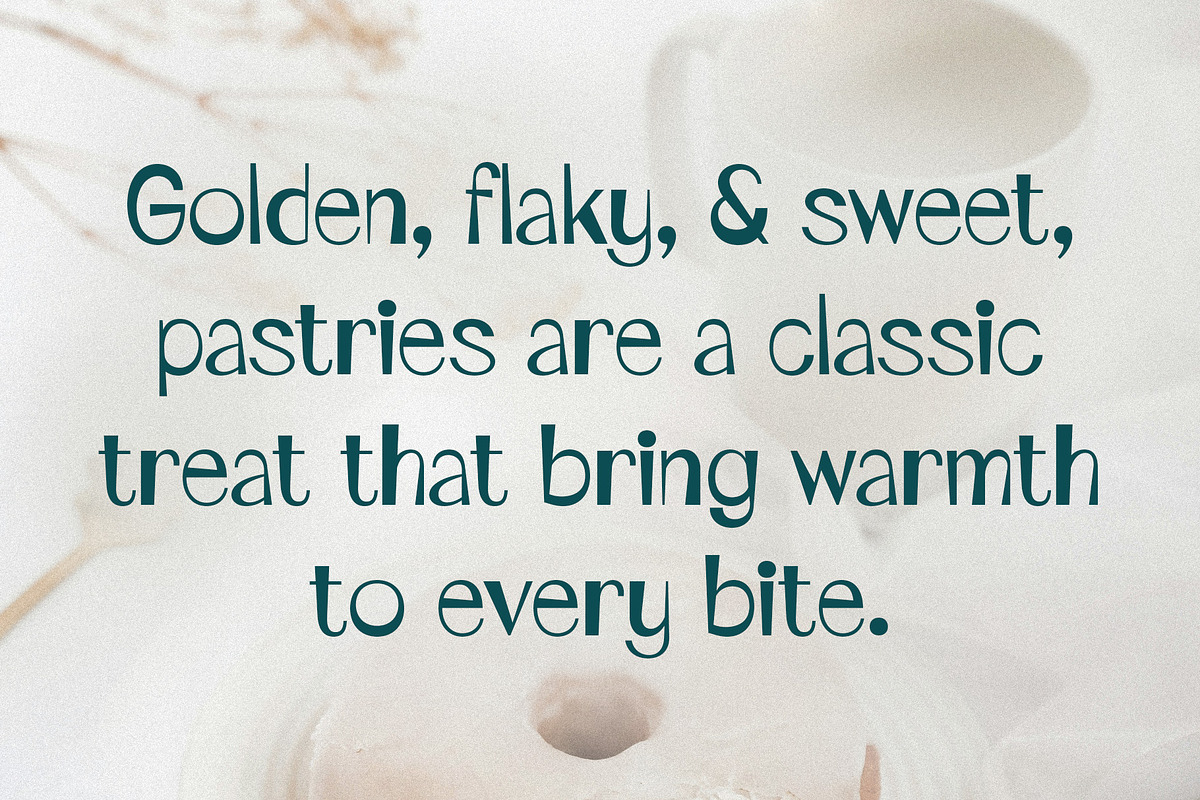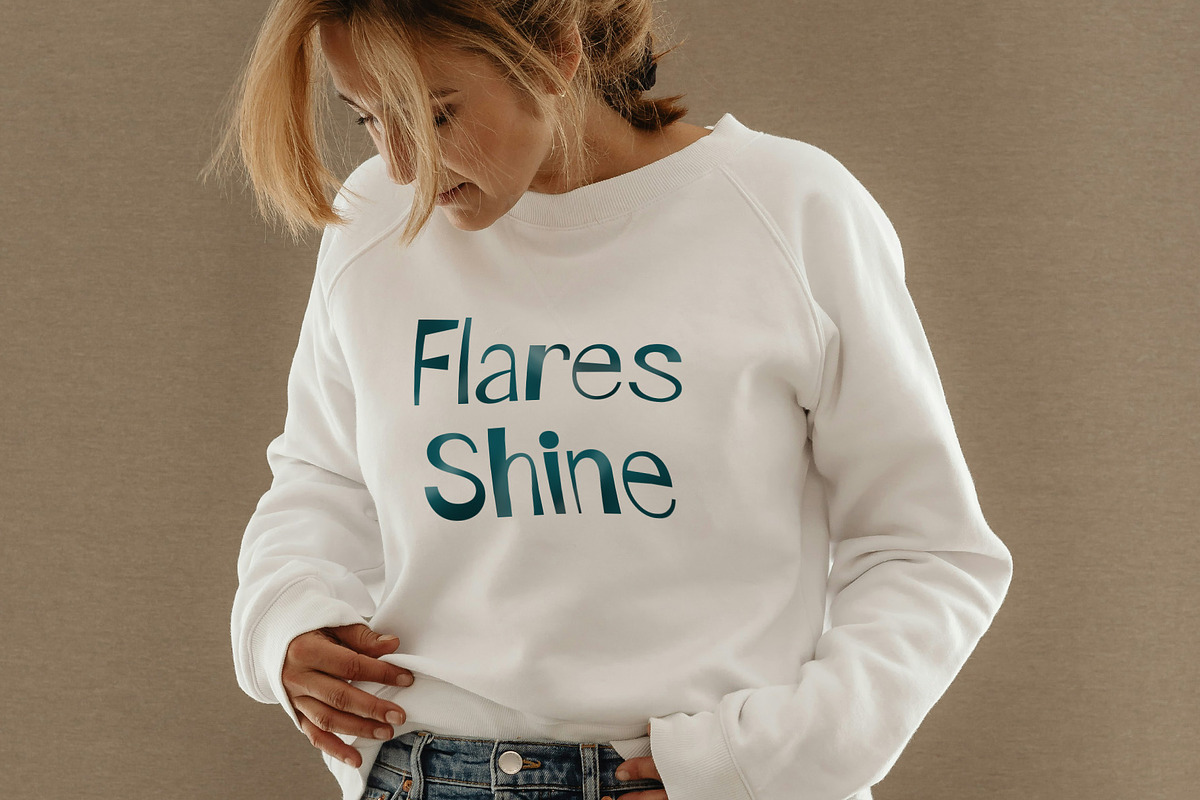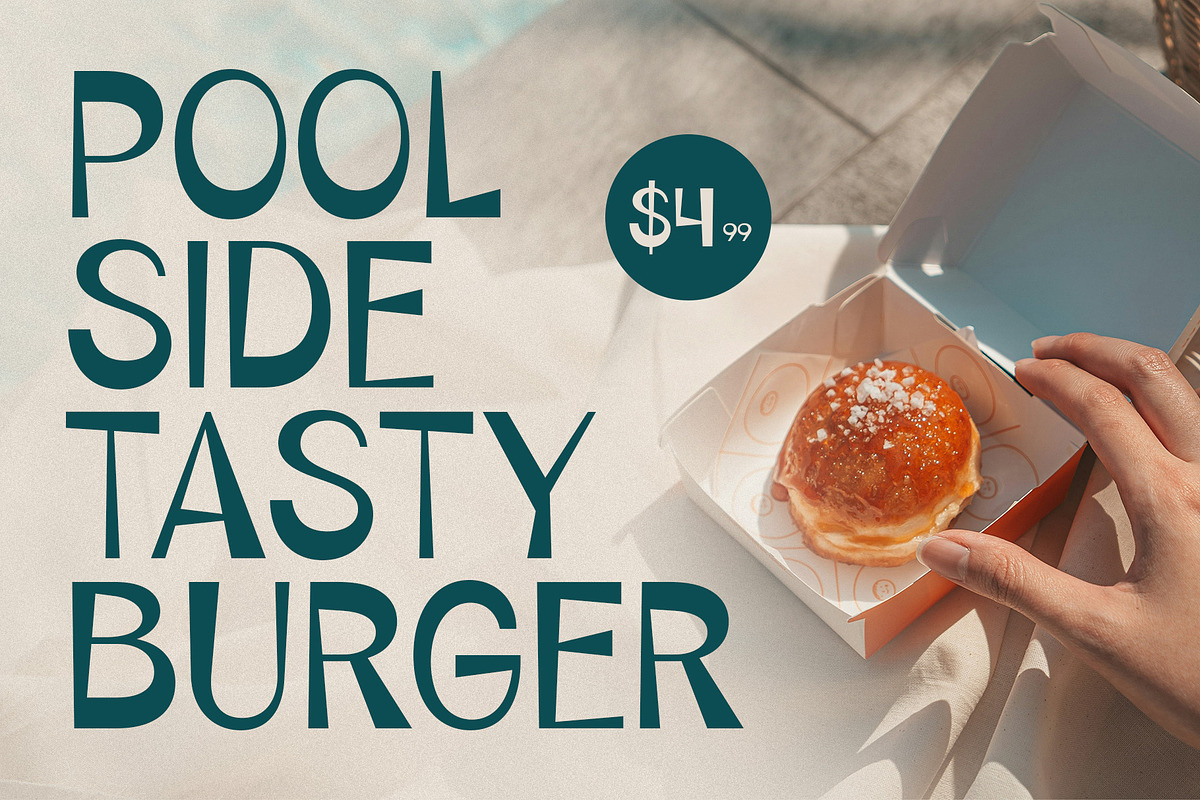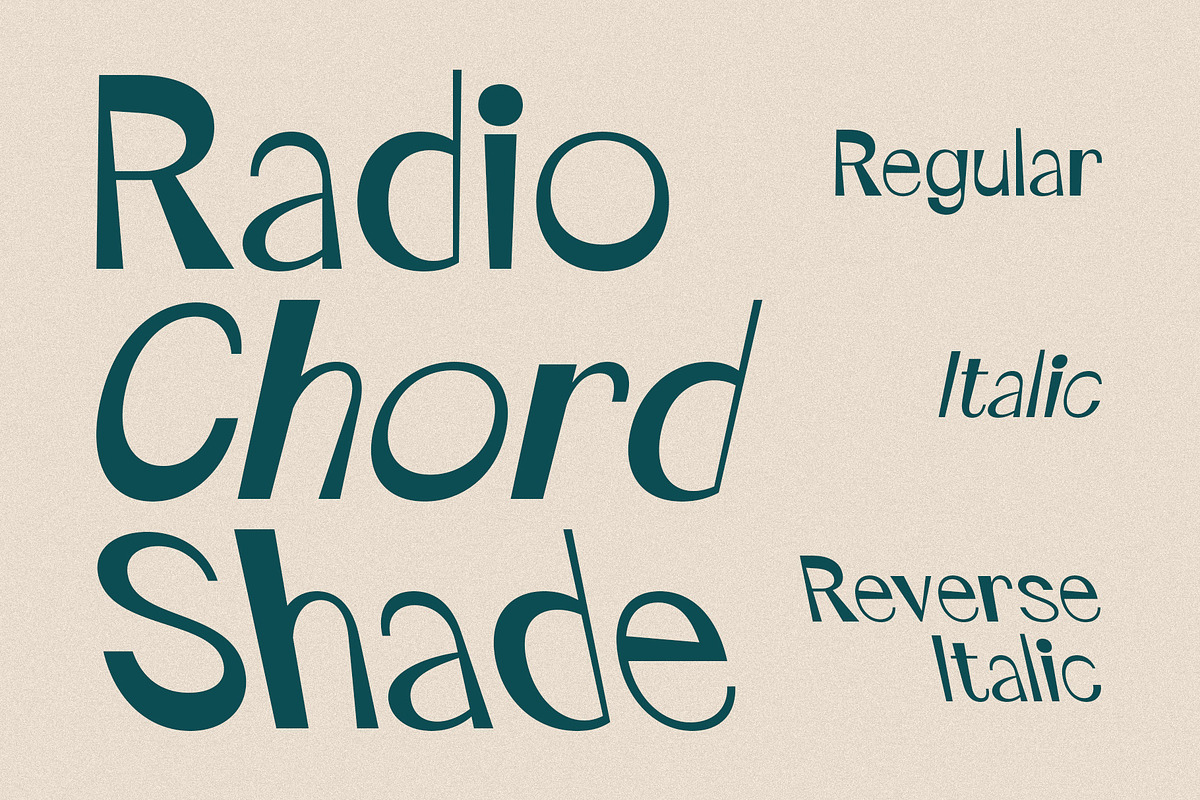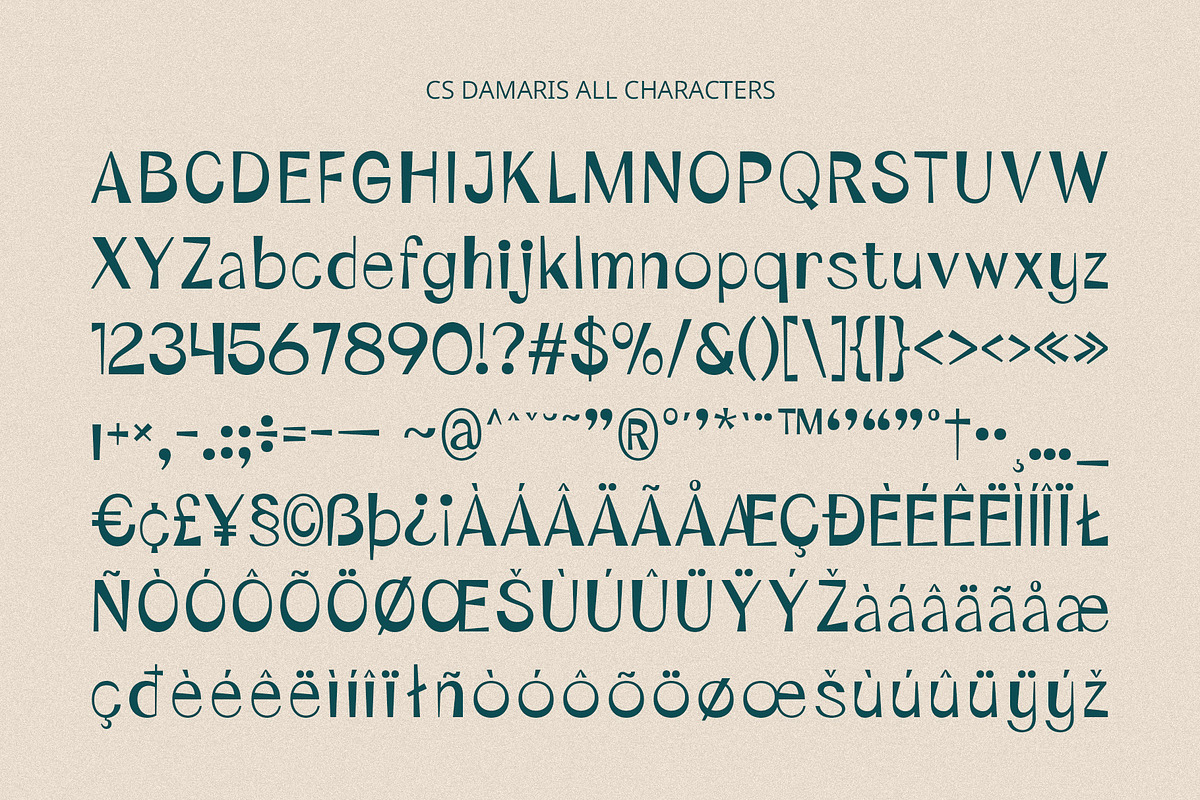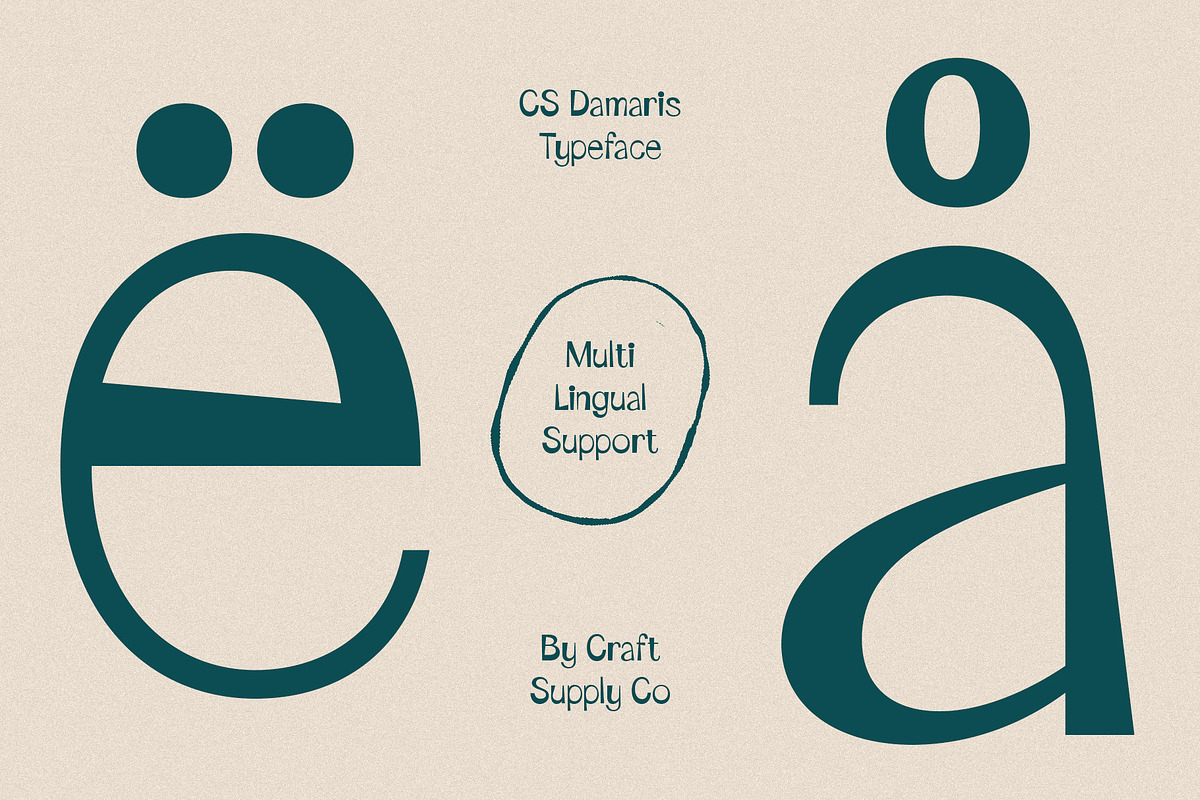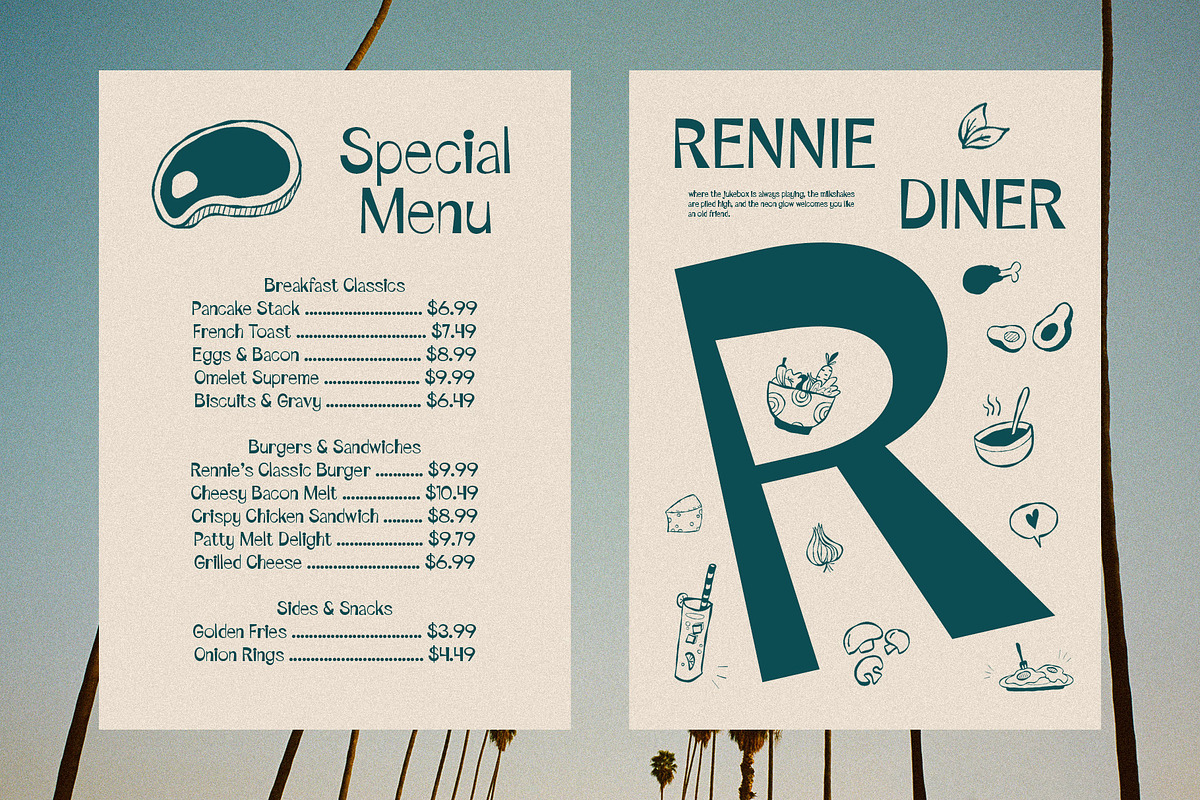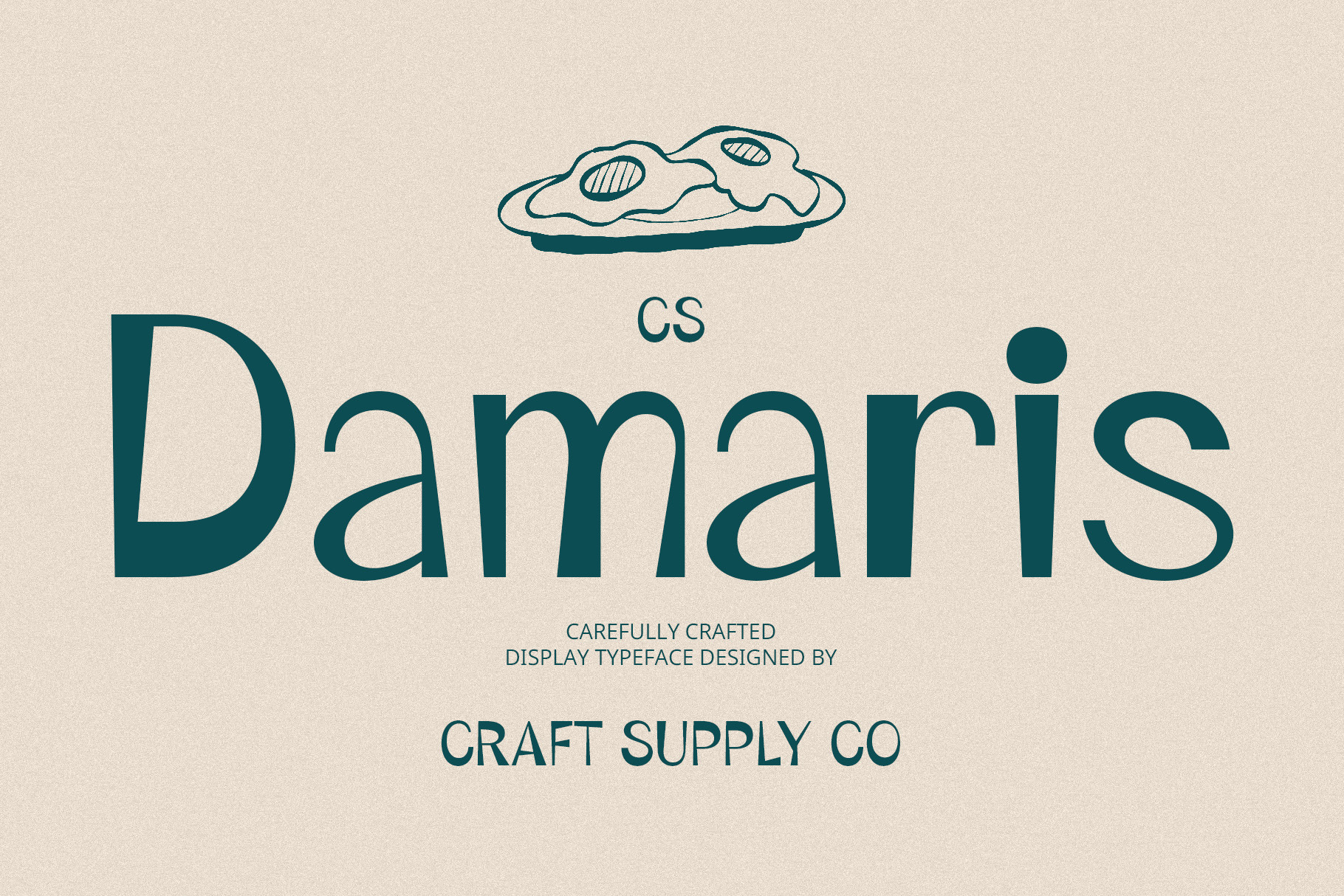
CS Damaris – Fun Font
CS Damaris – A Fun & Playful Display Font
Bright, Cheerful, and Full of Energy CS Damaris is a modern sans-serif display font designed to infuse joy, playfulness, and creativity into any design. With its rounded letterforms, dynamic proportions, and smooth curves, this font radiates a friendly and inviting aesthetic, making it perfect for projects that need a lively, youthful, and engaging feel.
A Perfect Fit for Playful & Creative Projects CS Damaris is crafted to evoke happiness and excitement, making it an excellent choice for children’s books, educational materials, toy packaging, and playful branding. Its soft and bubbly appearance makes every word look warm, approachable, and fun, while its strong presence allows for eye-catching headlines, posters, and social media graphics.
A Whimsical Typeface That Sparks Imagination This font seamlessly blends modern simplicity with a lighthearted personality, making it ideal for designs that require a fun yet professional touch. From animated visuals, greeting cards, and playful advertisements to cartoon-inspired logos and creative marketing campaigns, CS Damaris enhances every project with a sense of joy and movement.
Let Your Designs Come to Life If you’re looking for a bold, engaging, and fun font that stands out while maintaining a clean and modern look, CS Damaris is the perfect choice. Whether you’re designing for kids’ entertainment, lifestyle brands, or vibrant promotional materials, this font guarantees a memorable, happy, and energetic impact.